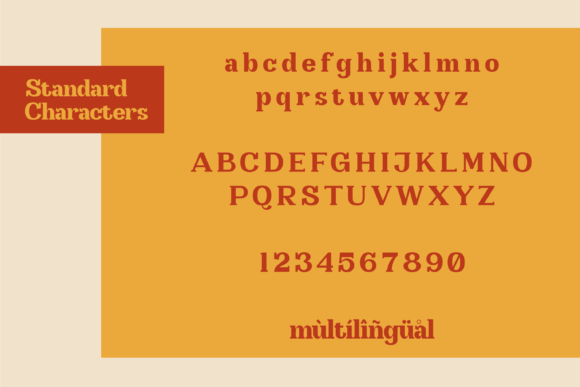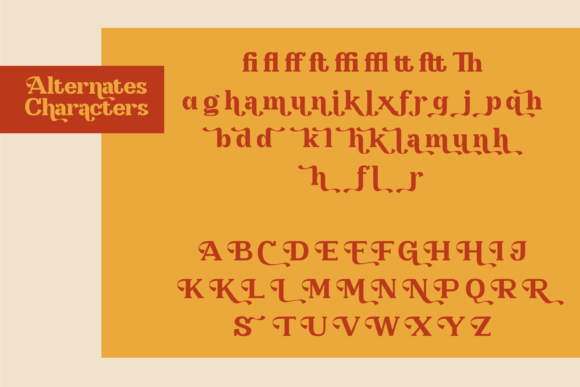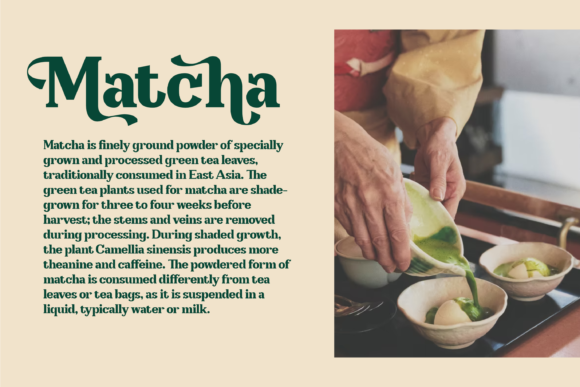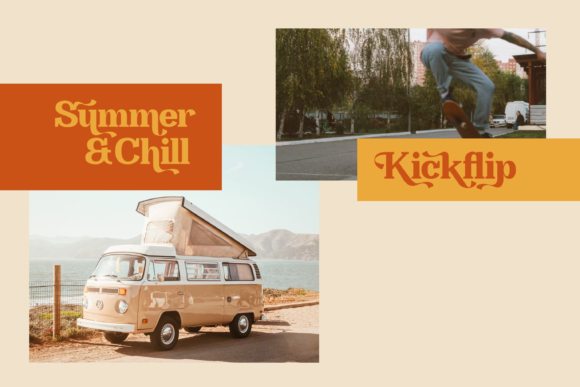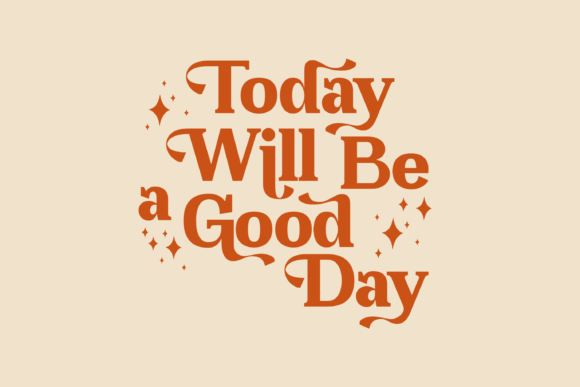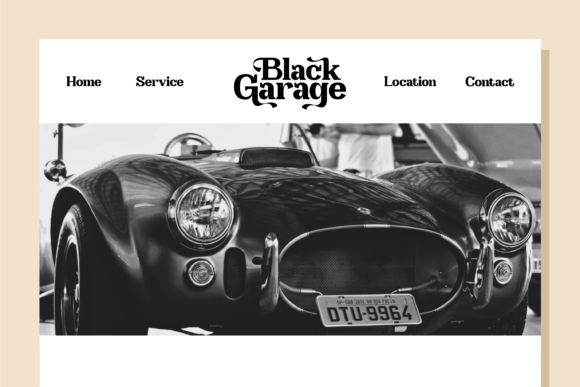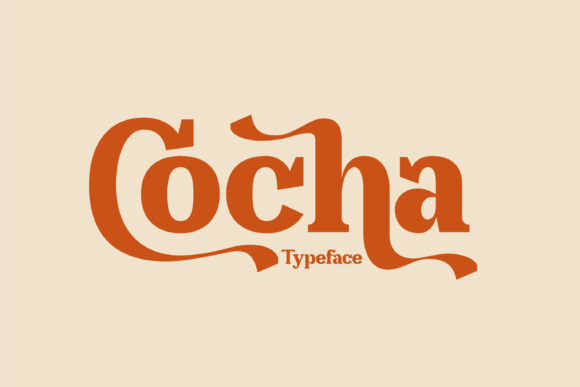
Introducing Cocha Font: The Perfect Blend of Classic and Modern Elegance
In the world of typography, a font can make or break a design. For designers and crafters looking for a typeface that exudes elegance and luxury, Cocha Font is an exceptional choice. This classic and modern serif font boasts a unique style, complete with swashes that elevate any design to new heights. Whether you’re working on a logo, magazine, fashion brand, or simply a creative project, Cocha Font is the perfect companion.
Aesthetic Appeal of Cocha Font
Cocha Font strikes a beautiful balance between classic serif elements and modern flair. Its unique style is characterized by clean lines, subtle curves, and a sophisticated demeanor. The inclusion of swashes adds an extra layer of elegance, allowing designers to add a touch of personality to their work. From luxurious logos to stylish lettering, Cocha Font brings a level of refinement that’s hard to match.
One of the standout features of Cocha Font is its incredible versatility. This typeface can be used across a wide range of projects, including:
- Elegant and luxurious logos that make a lasting impression
- Magazines and editorials that require a touch of sophistication
- Fashion brands and clothing lines that demand style and elegance
- Lettering and quotes that need a unique and eye-catching flair
Cocha Font’s adaptability makes it an invaluable asset for designers who work on diverse projects or for crafters who enjoy experimenting with different styles.
Cocha Font is PUA (Private Use Area) encoded, which means that accessing all the glyphs and swashes is incredibly straightforward. Designers can easily insert special characters, ligatures, and swashes into their work without needing to navigate complex character maps. This feature streamlines the design process, allowing for greater creativity and productivity.
Why Choose Cocha Font?
With so many fonts available, why should Cocha Font be at the top of your list? Here are a few compelling reasons:
- Unique Style: Cocha Font offers a distinctive look that sets it apart from more traditional serif fonts.
- Elegance and Luxury: Perfect for designs that require a high-end feel.
- Versatility: Suitable for a wide range of projects, from logos to lettering.
- Easy to Use: PUA encoding makes it simple to access all glyphs and swashes.
Tips for Using Cocha Font
To get the most out of Cocha Font, consider the following tips:
- Experiment with Swashes: Don’t be afraid to try out different swashes to find the perfect fit for your design.
- Mix and Match: Combine Cocha Font with other typefaces for a unique and compelling look.
- Adjust Size and Weight: Play with the font size and weight to add depth and emphasis to your design.
Cocha Font is a game-changer for designers and crafters seeking a typeface that embodies both classic elegance and modern sophistication. With its unique style, swashes, and PUA encoding, this font is poised to elevate any design project. Whether you’re working on a luxury brand, a fashion magazine, or simply a creative side project, Cocha Font is an excellent choice. Explore the possibilities of Cocha Font today and discover a world of typographic elegance at your fingertips.